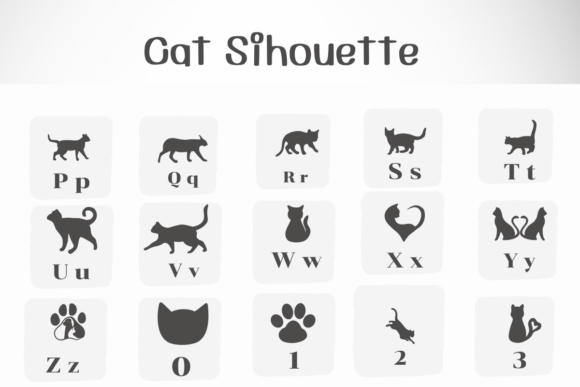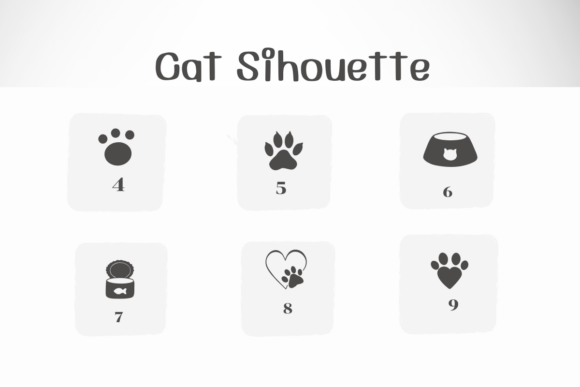
Cat Sihouette Font
About the Cat Sihouette Font
The Cat Sihouette Font offers a perfect balance of form and function for your design needs. Cat Sihouette is a dingbats font with a fun, feline theme. This font can enhance your creative projects, such as wedding invitations, DIY, crafts, decorations, logos, and many other creative ideas.